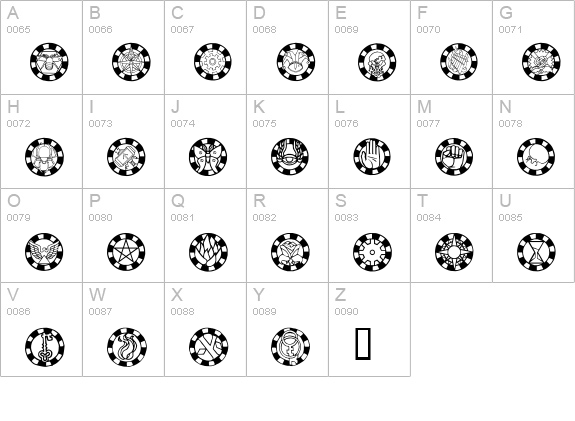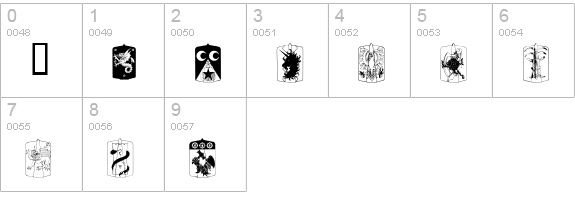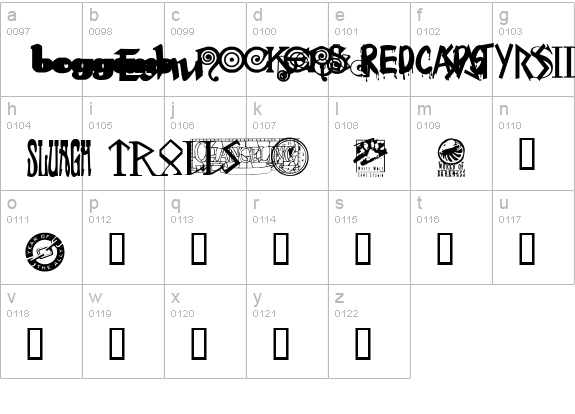
Changeling Dingbats Font Details
Changeling Dingbats font is a whimsical and versatile typeface that adds a touch of magic to any design project. With its quirky and unique characters, this font is perfect for creating eye-catching graphics, invitations, and more. The intricate details and playful style of Changeling Dingbats make it a standout choice for those looking to add a bit of charm and personality to their work. And the best part? Changeling Dingbats font is completely free to download at FontsMarket.com! Whether you're a professional designer or just looking to spice up your personal projects, this font is a must-have addition to your collection. Embrace the enchanting world of Changeling Dingbats and let your creativity soar. Download now and start creating magic with this delightful font.